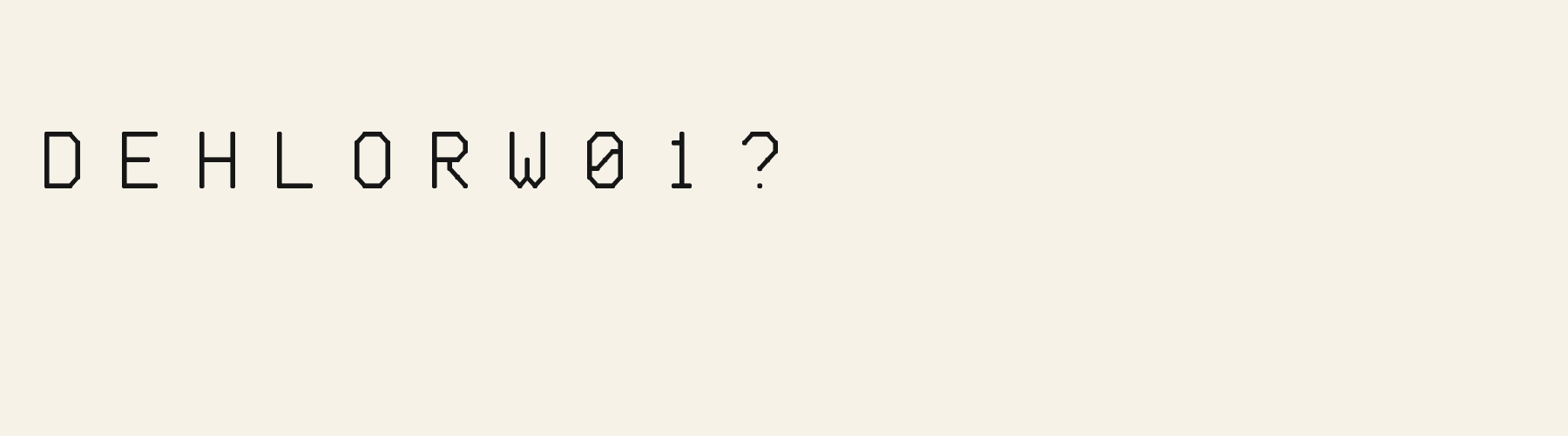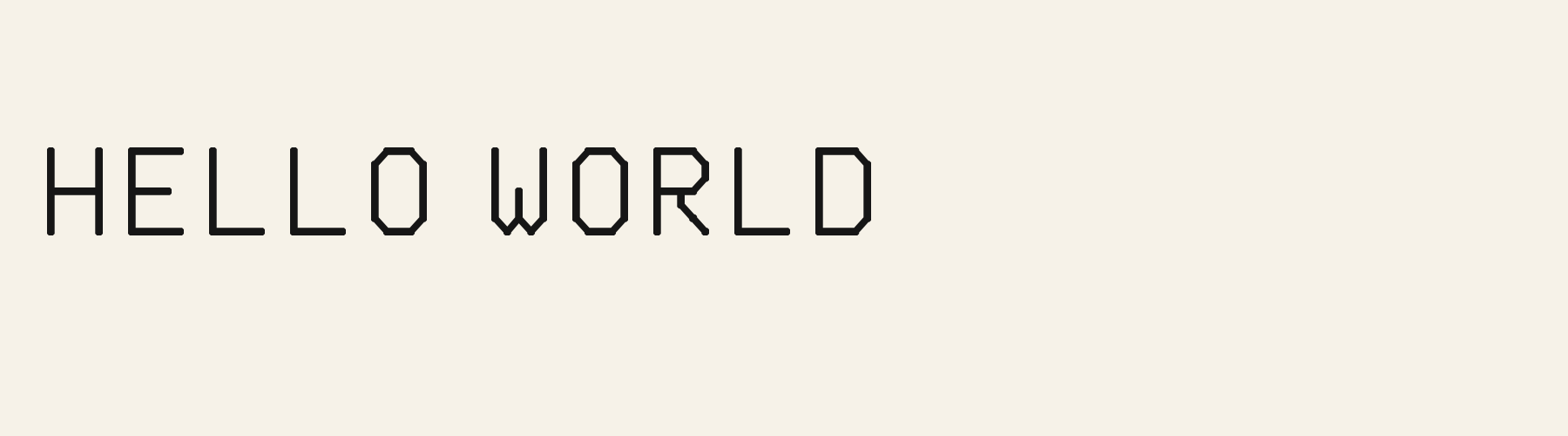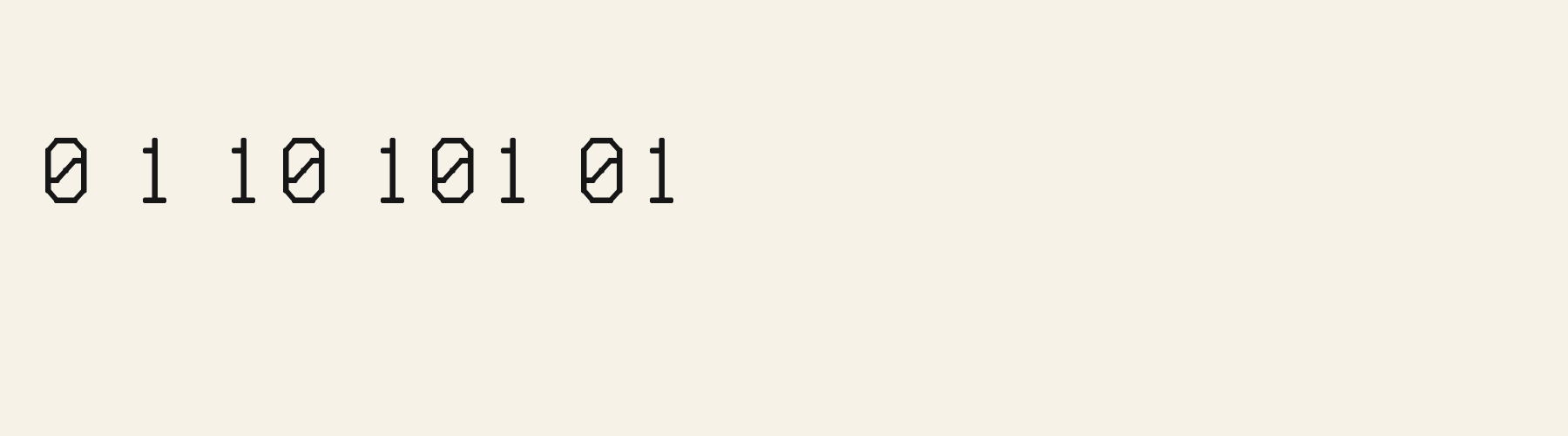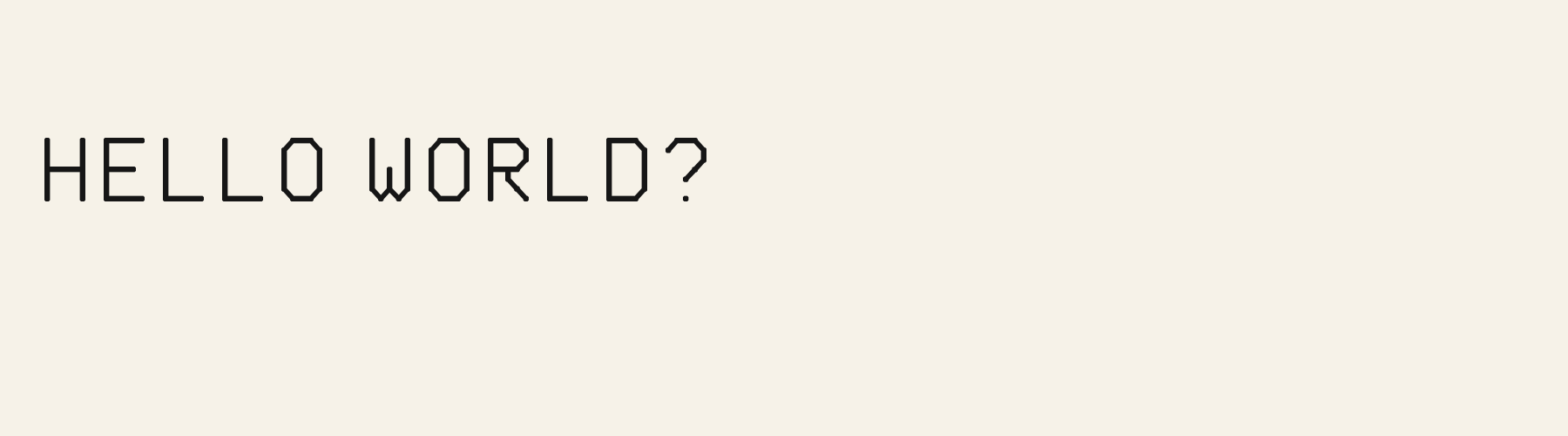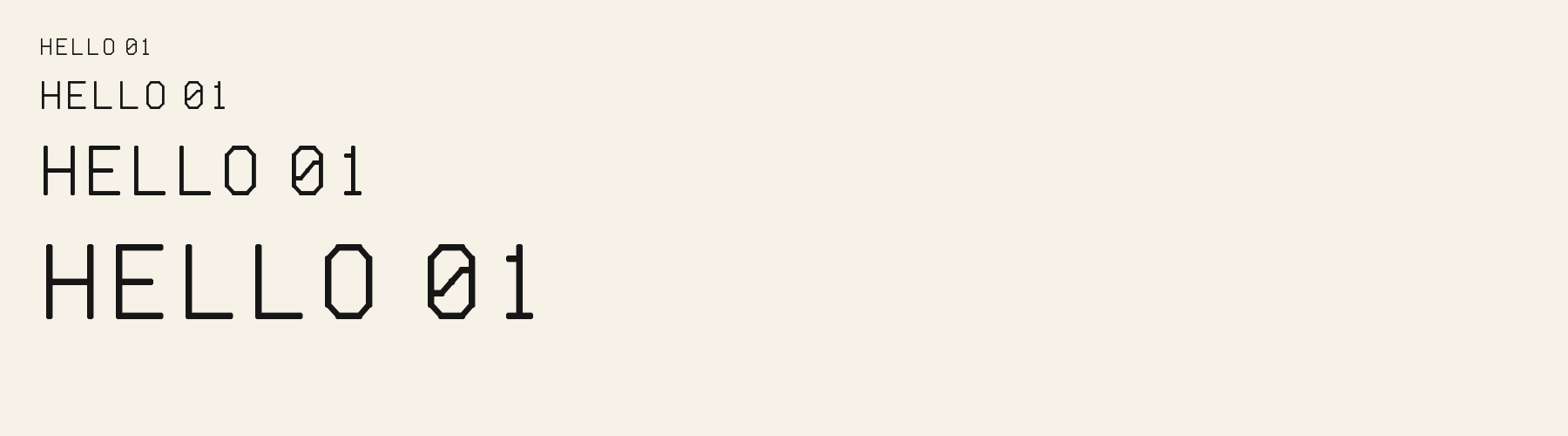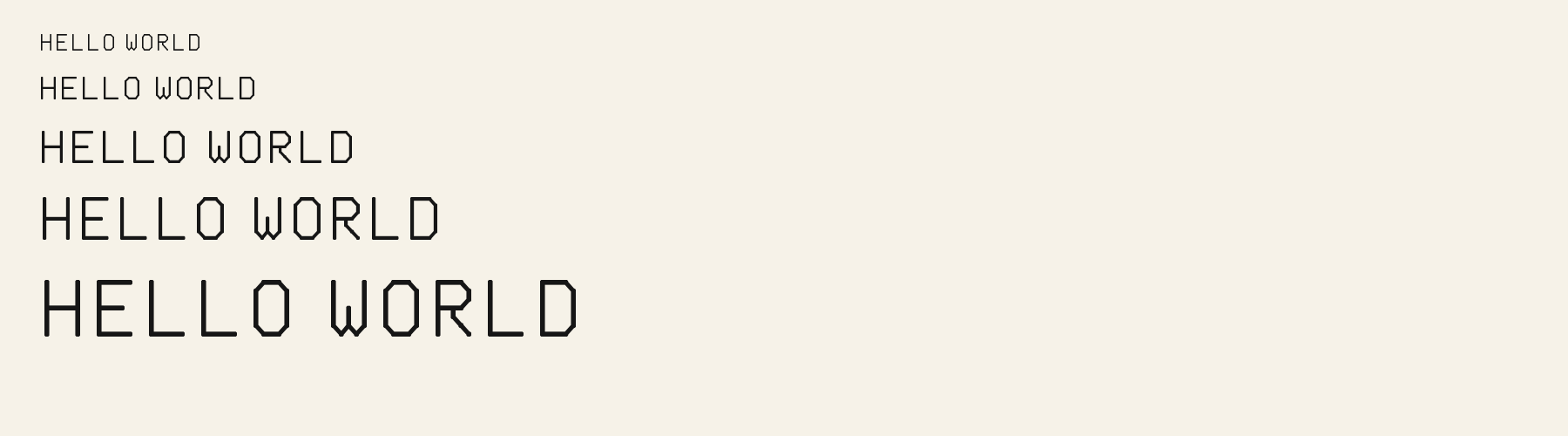
Mono Code Cut Chamfered Octagon Console Font
Mono Code Cut uses slender, even strokes and clipped corners to give familiar capitals a spare technical character.
Chamfered Octagon Console Letterforms
Mono Code Cut uses slender, even strokes and clipped corners to give familiar capitals a spare technical character. The O forms an octagonal loop, with straight sides and short diagonal transitions into flat top and bottom edges. The R repeats that angular construction in its bowl, then sends its leg downward through a brief vertical section before turning diagonally outward. The W has tall outer stems and a shorter central upright, creating pointed valleys along its base. Open interiors and generous surrounding space keep these mechanical shapes airy, while the upright stance gives headings a calm, deliberate rhythm.
Inspect repeated Ls, the forked W, and the R leg in your actual wording. Compare O with the slashed zero, and check punctuation beside capitals. These specimens show Latin forms; preview any other script separately with the intended fallback.
Try this face for headings and short labels, with a proportional serif for supporting text. Its flat edges and angular bowls would contrast with curved strokes and varied letter widths, helping separate technical identifiers from longer explanations.
Compare the original spacing with a wider setting. The repeated L shapes already leave open areas above their feet; additional tracking can separate these letters strongly and make the word space feel less distinct.
Mono Code Cut shows slimmer strokes and narrower letter bodies in the supplied specimens. Its octagonal O and forked W give the line a spare, angular rhythm suited to a lighter technical heading.
Mono Terminal Round shows heavier strokes, broader letter bodies, and more prominent rounded ends on open strokes. Its shared angular bowls remain visible, while the line occupies more horizontal space and carries greater visual weight.
Poster. The octagonal bowls and forked W give a technical event poster a clear visual theme with an airy stroke. UNIT 01
Product label. Even strokes and the slashed zero suit equipment labels where letters and figures need visibly different shapes. HELLO WORLD
Website headline. Straight stems, clipped bowls, and open interiors give a website heading a restrained console character.
Its x-height is 69.6% of the cap height, near the 70.2% typical of monospace fonts in the library, lower than 15 of the 22 other monospace fonts. Ascenders on b, d, h, k and l line up with the capitals (100% of their height), and descenders on g, j, p, q and y drop 30.4% of the cap height below the baseline, deeper than 12 of the 22 other monospace fonts. It sets wide: an average lowercase letter, spacing included, is 92.5% as wide as the capitals are tall (an average capital, 92.5%), 7.6% more than the median for monospace fonts, so the same words take a longer line. The o is an upright oval, 0.91 times as wide as it is tall, and every capital has the same width. O stands exactly as tall as H and sits on the baseline, with no overshoot.
The letters stand upright, leaning less than 2.5° either way. Vertical stems measure 8.7% of the cap height, lighter than 12 of the 18 other monospace fonts. Ink covers 18% of each lowercase letter's box (its advance width by the cap height), lighter than 20 of the 22 other monospace fonts. Strokes keep one thickness in every direction: the sides of o and O measure the same as their tops and bottoms. Mono Code Cut comes in Regular and Bold; Bold puts down 23% more ink than Regular.
Its 159 characters include 116 Latin letters, plus 43 figures, punctuation marks and symbols; 64 of the Latin letters are accented or special forms beyond A to Z. The word space measures 44.5% of the cap height, and the blank space either side of a lowercase letter takes up 35.3% of its width. The font carries no kerning, so spacing comes from each letter’s own side bearings. All ten figures share one width, so columns of numbers line up.